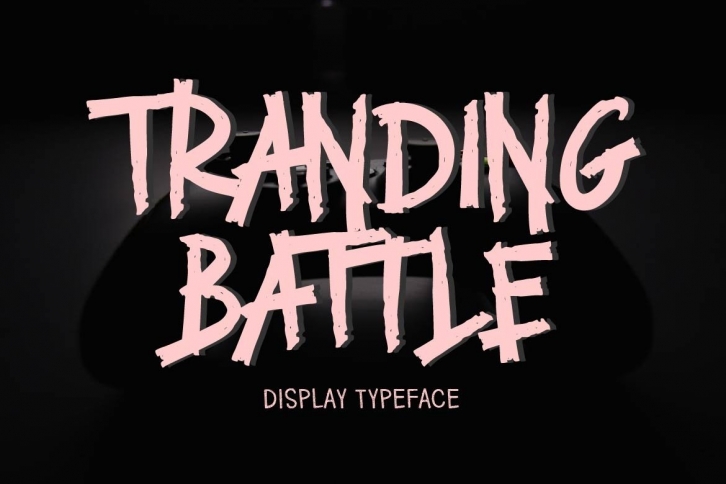
TRANDING BATTLE is a trendy and unique font with an authentic style. It was designed by aminmario and it's a great choice for creative people who need such a font. It was released on August 5, 2020 and the file size is 15.6 MB. TRANDING BATTLE will add an organic vibe to any design idea!